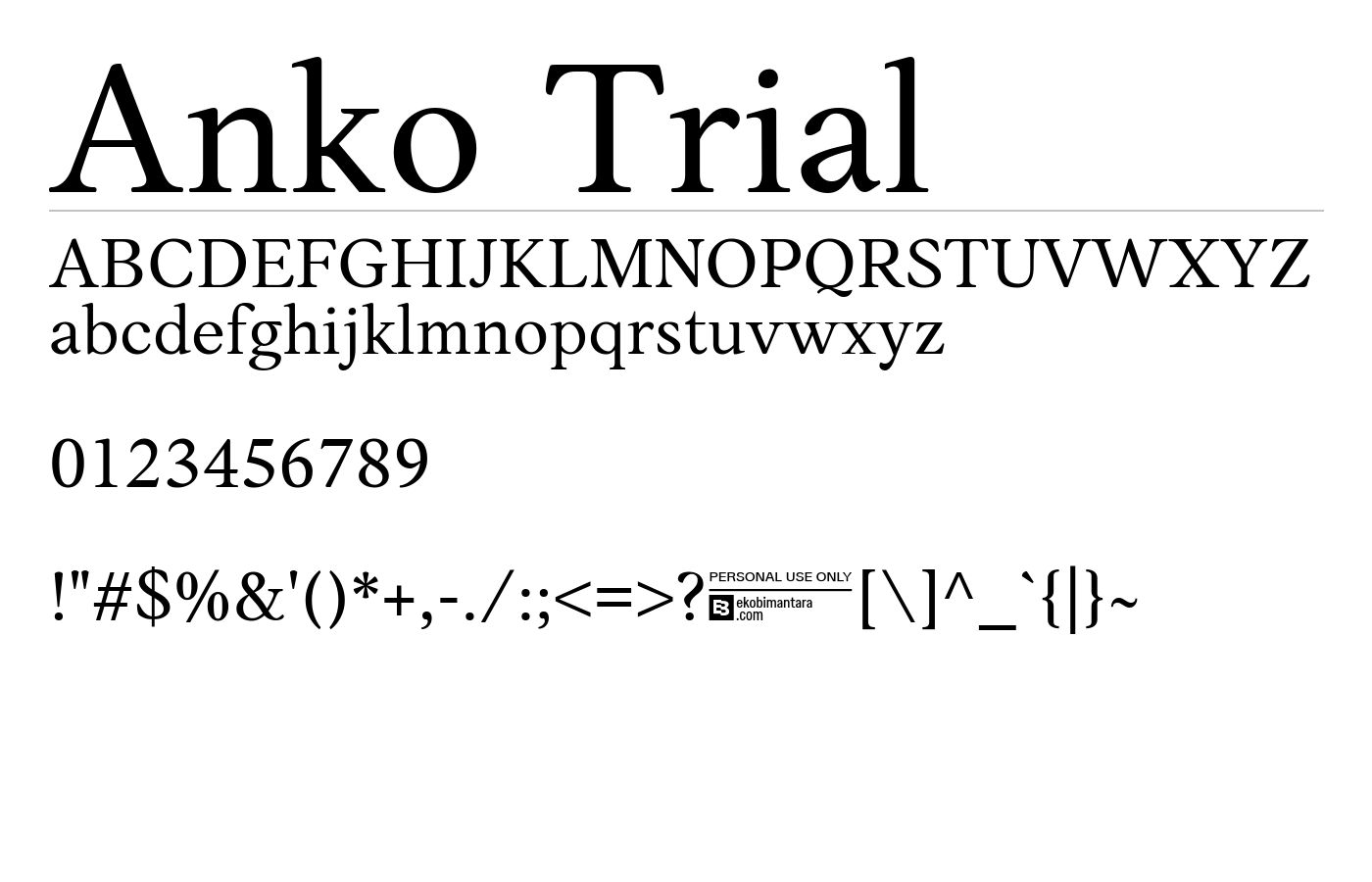
Anko Trial is a refined serif font with a classic and elegant feel, characterized by its moderate contrast between thick and thin strokes and delicate, bracketed serifs. Its tall x-height and clear letterforms, including distinctive double-story lowercase 'a' and 'g', make it highly readable while maintaining a sophisticated style. Ideal for editorial use, branding, and formal designs, this font balances tradition with a fresh, approachable tone.
| Font family | Anko Trial Font |
| Designer | Eko Bimantara |